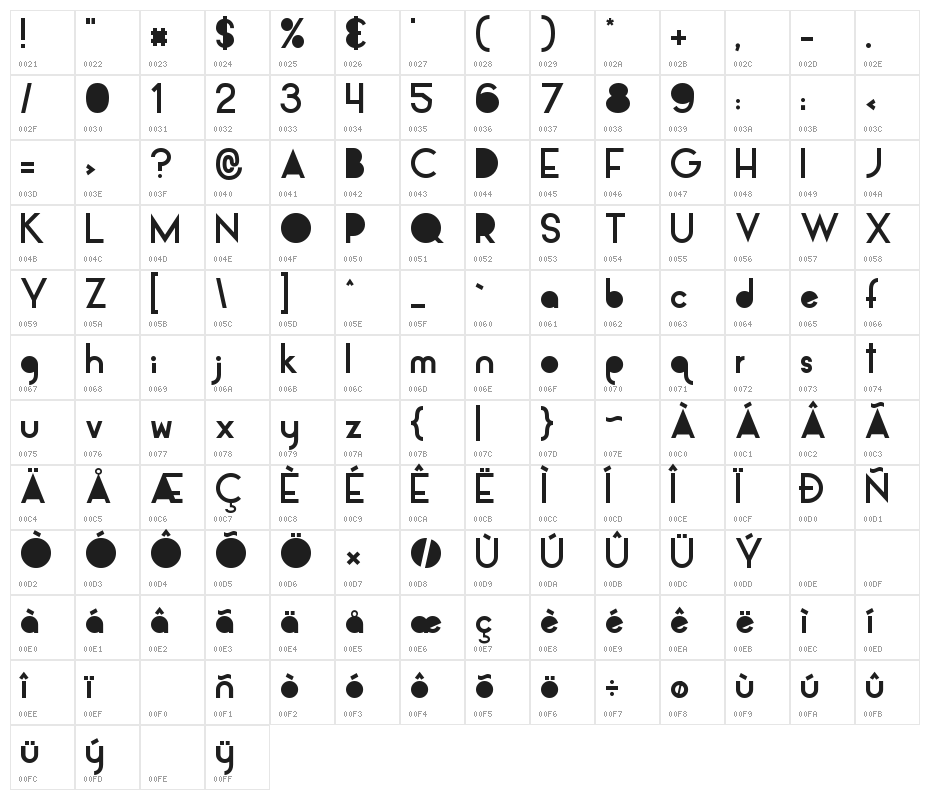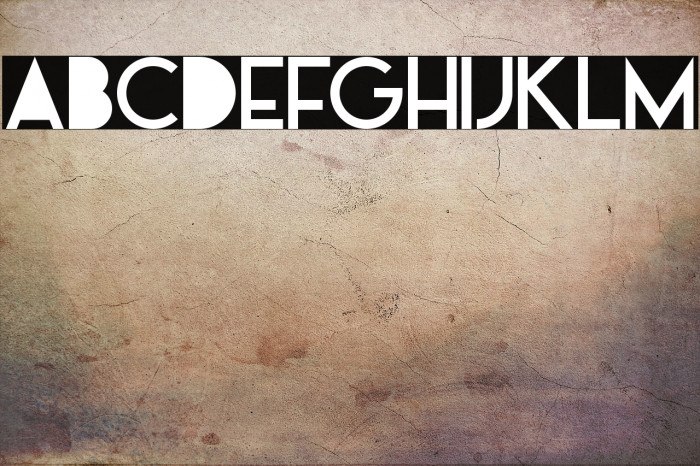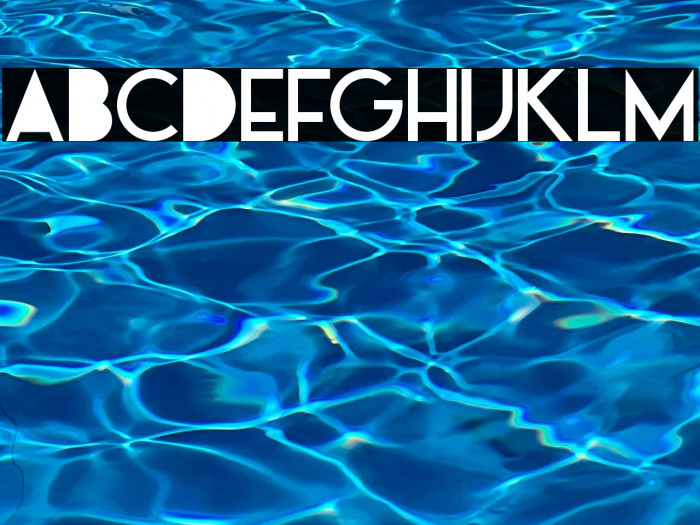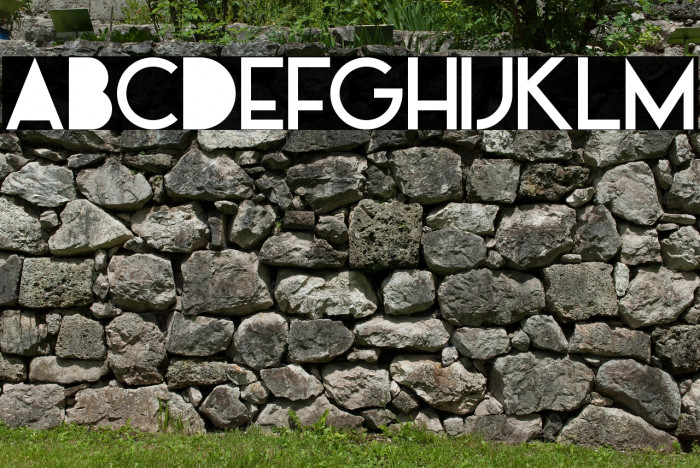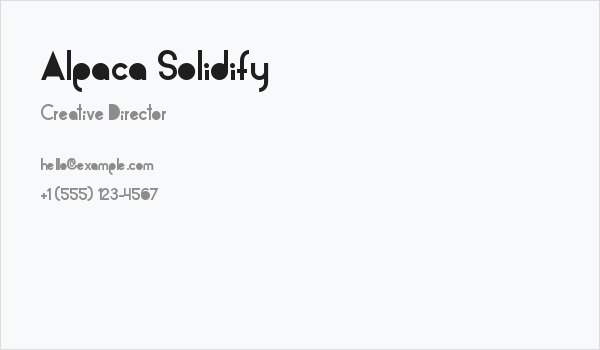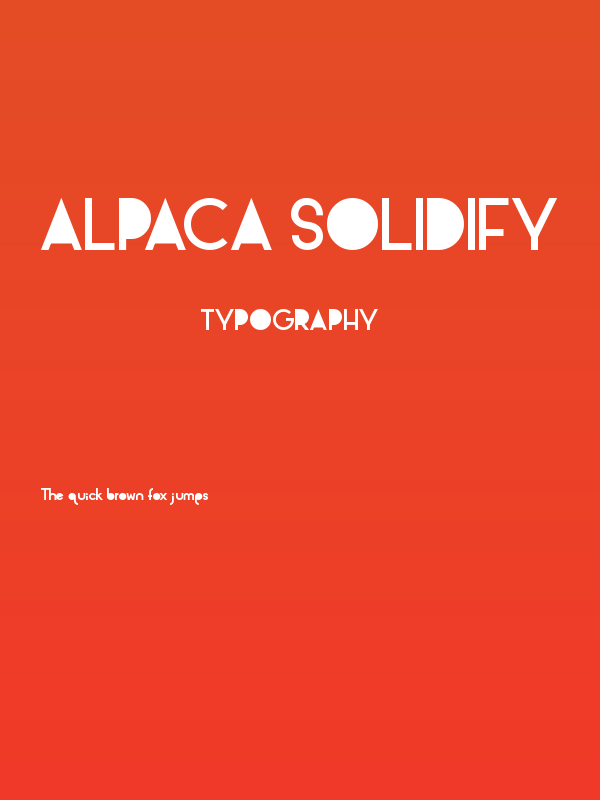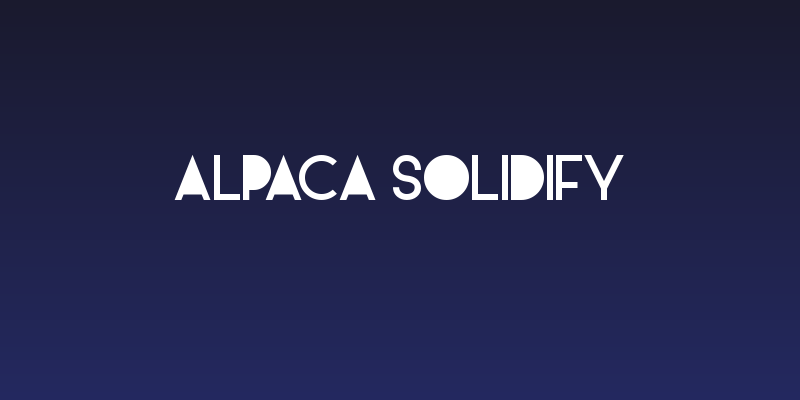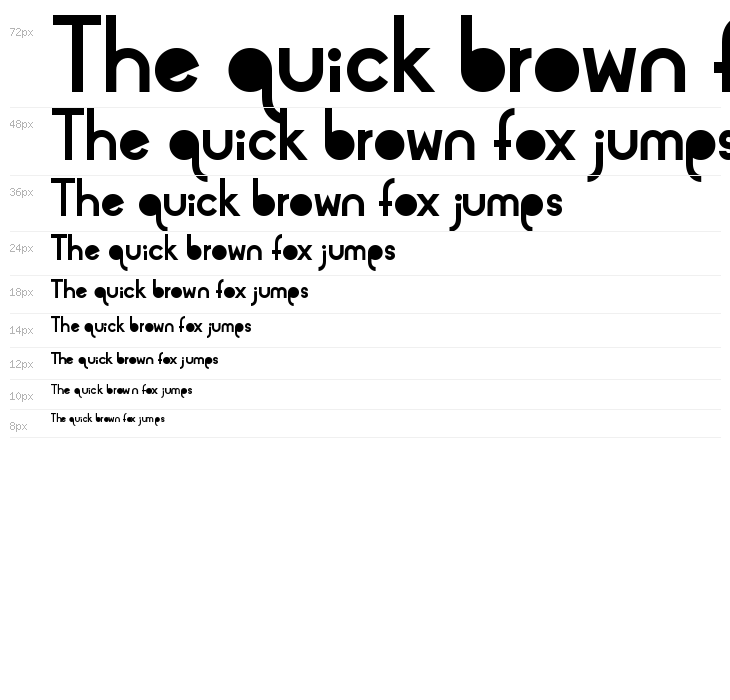
Alpaca Solidify Font
Alpaca Solidify Description
This font features a bold and geometric style with a modern flair. The uppercase letters are characterized by strong, angular lines and circular elements, creating a striking and memorable appearance. The lowercase letters maintain a similar geometric structure, with rounded edges that add a touch of softness to the overall design. The numerals are consistent with the bold and geometric theme, offering clear readability. Special characters are designed with the same attention to detail, ensuring a cohesive look across all glyphs. This font's unique style makes it suitable for a variety of creative applications.
| Proposed Projects | Ideal for branding, poster design, headlines, and digital media projects that require a modern and bold aesthetic. |